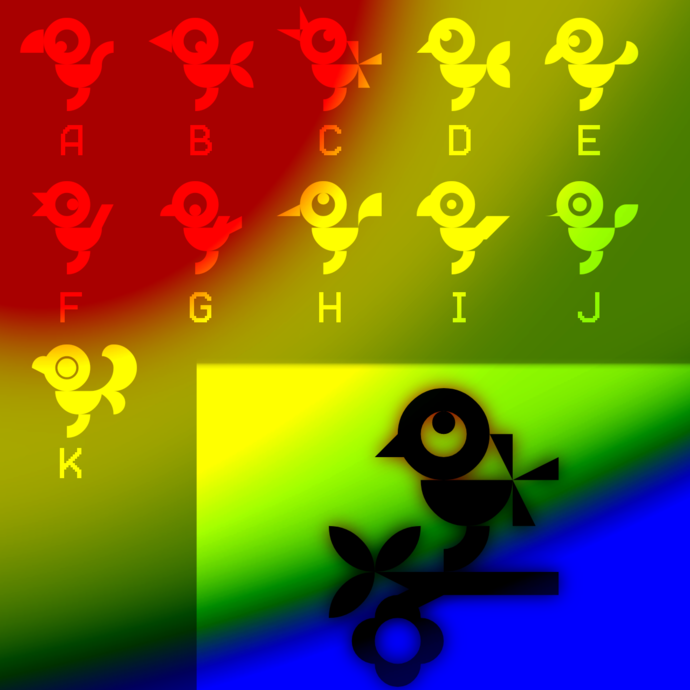
• Some simple geometric birdies. Not angry at all. Single components are for easy colouring and offline recombination.
Here’s a little diagram on how to use the component characters. The image links to a bigger PDF.
Added a branch (w), leaves (x), and a flower (y/z), mostly to have some descender, in order to make the generated font behave a little better.